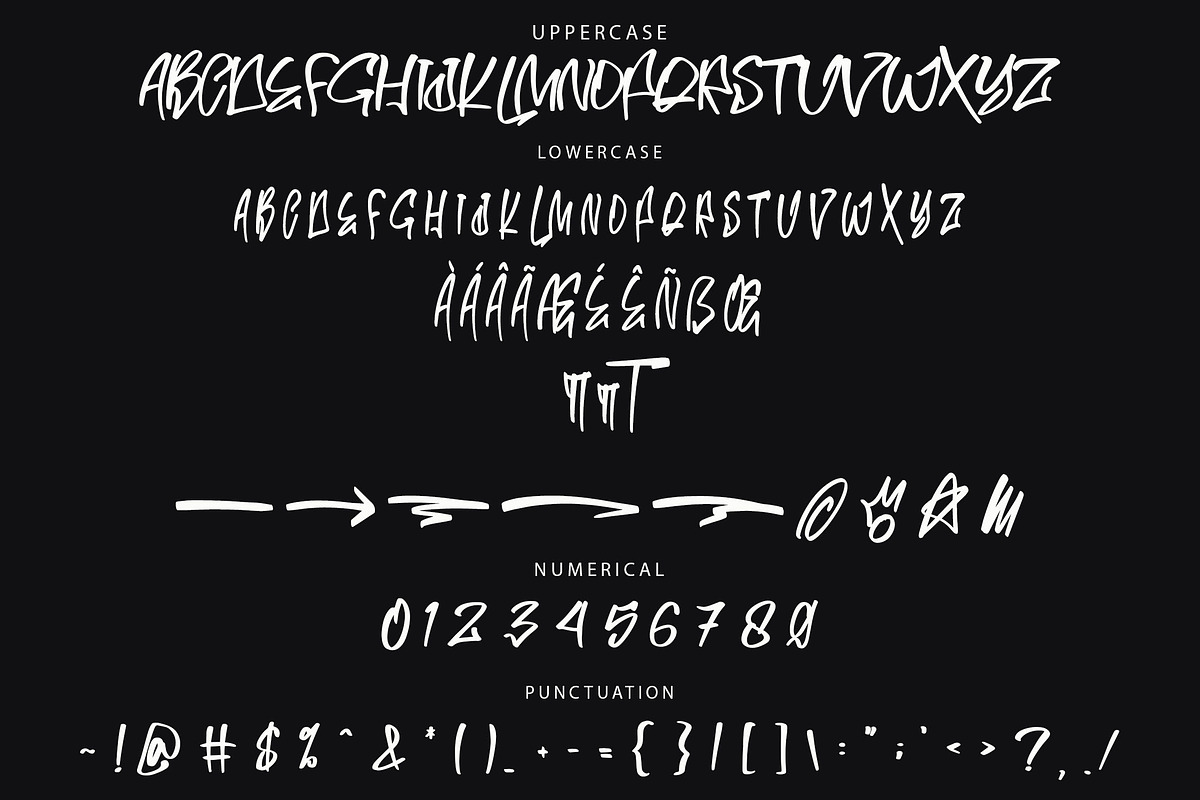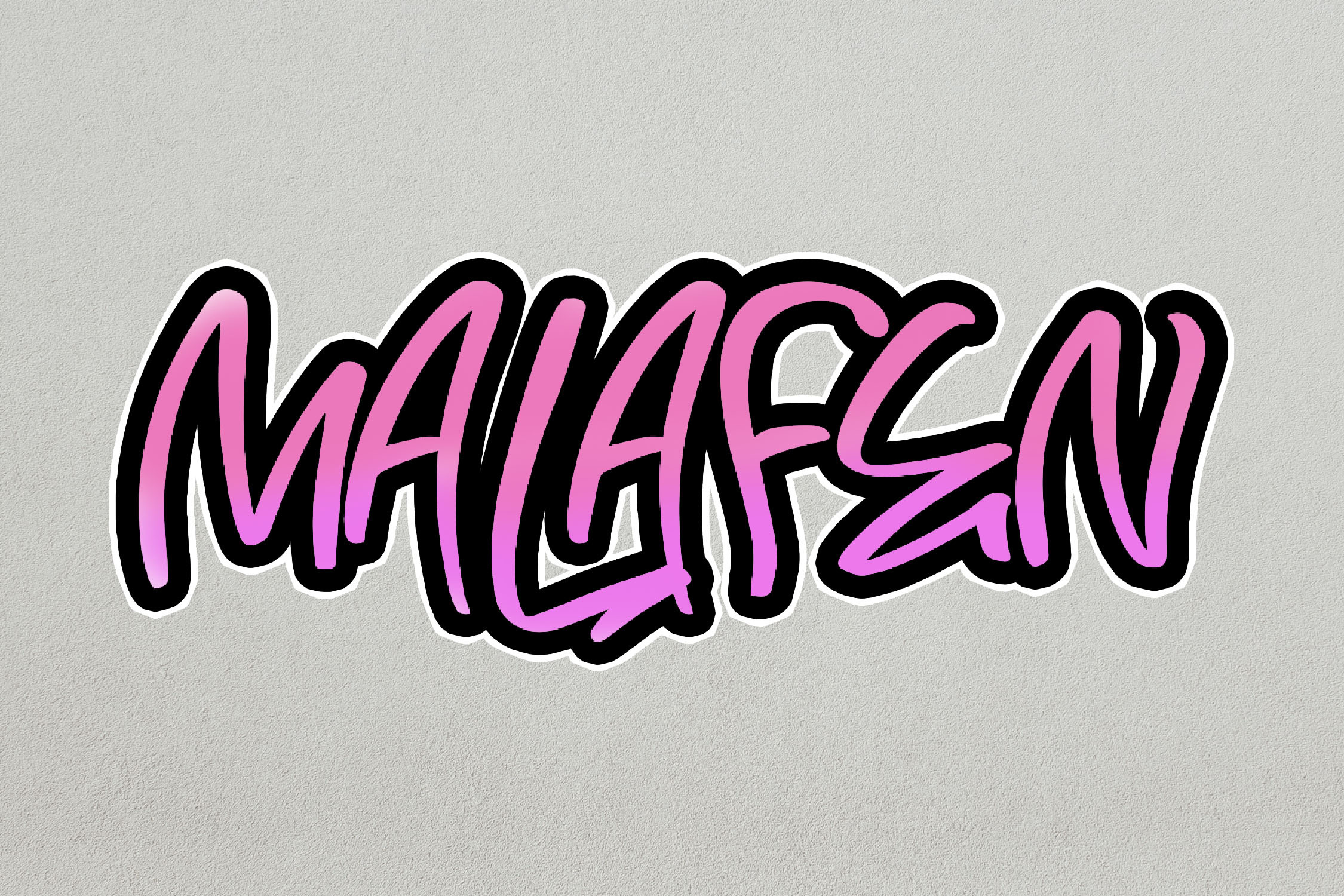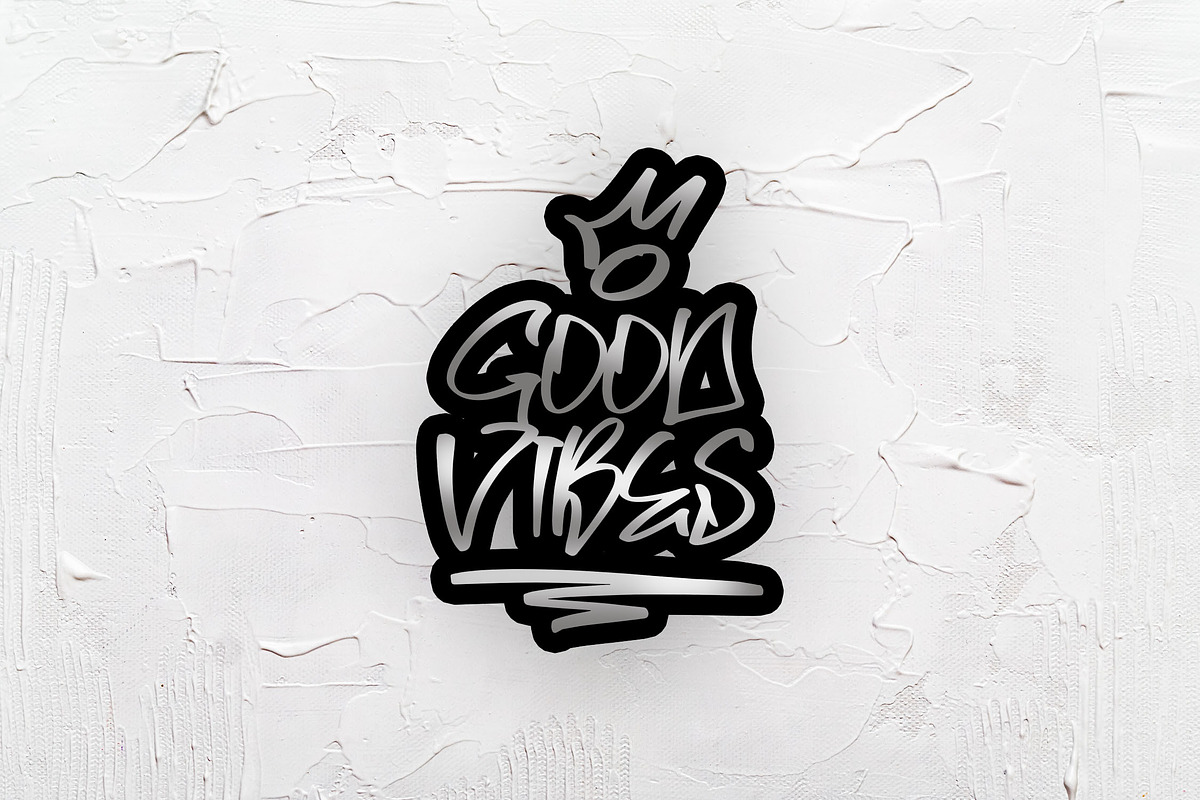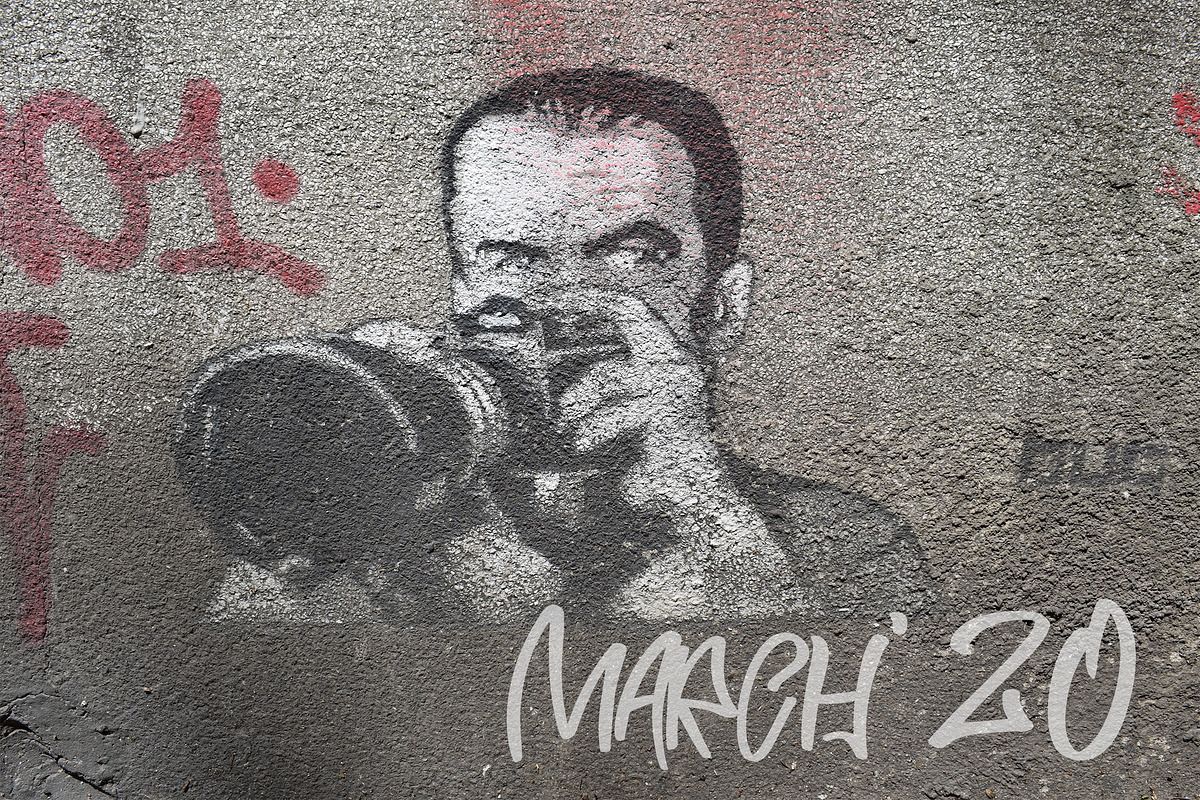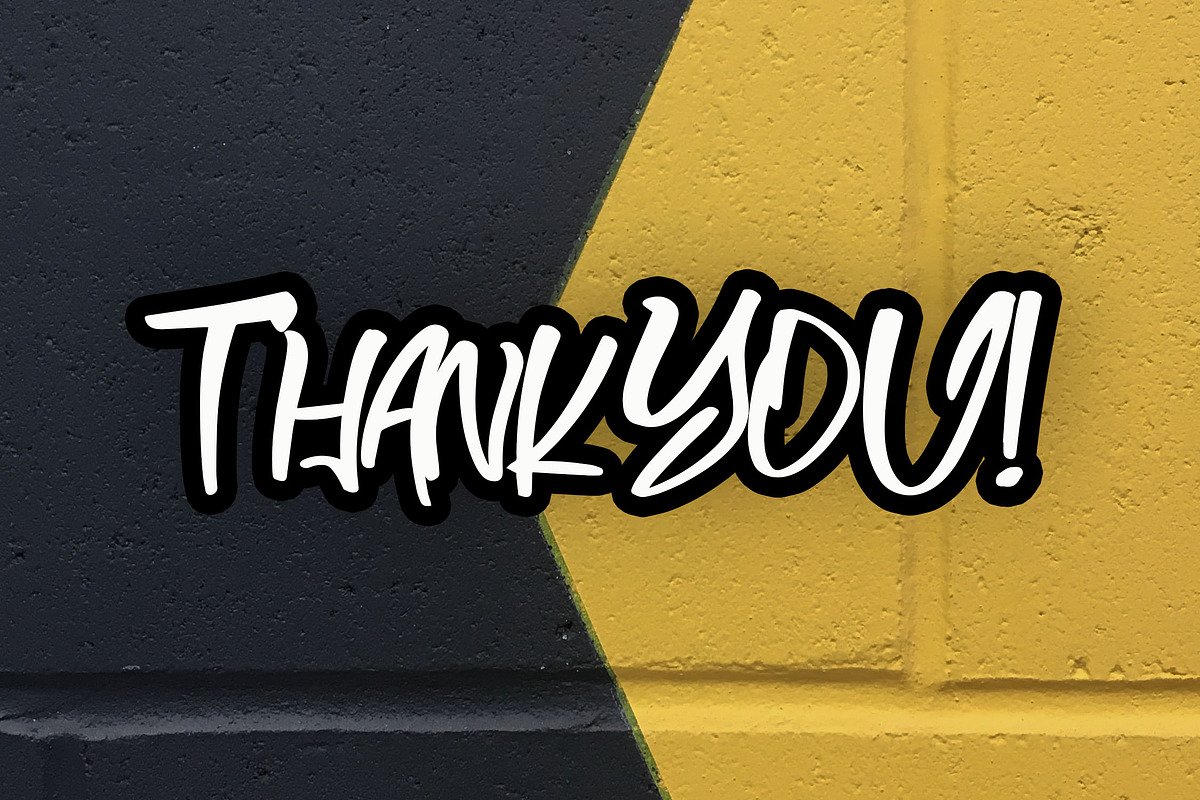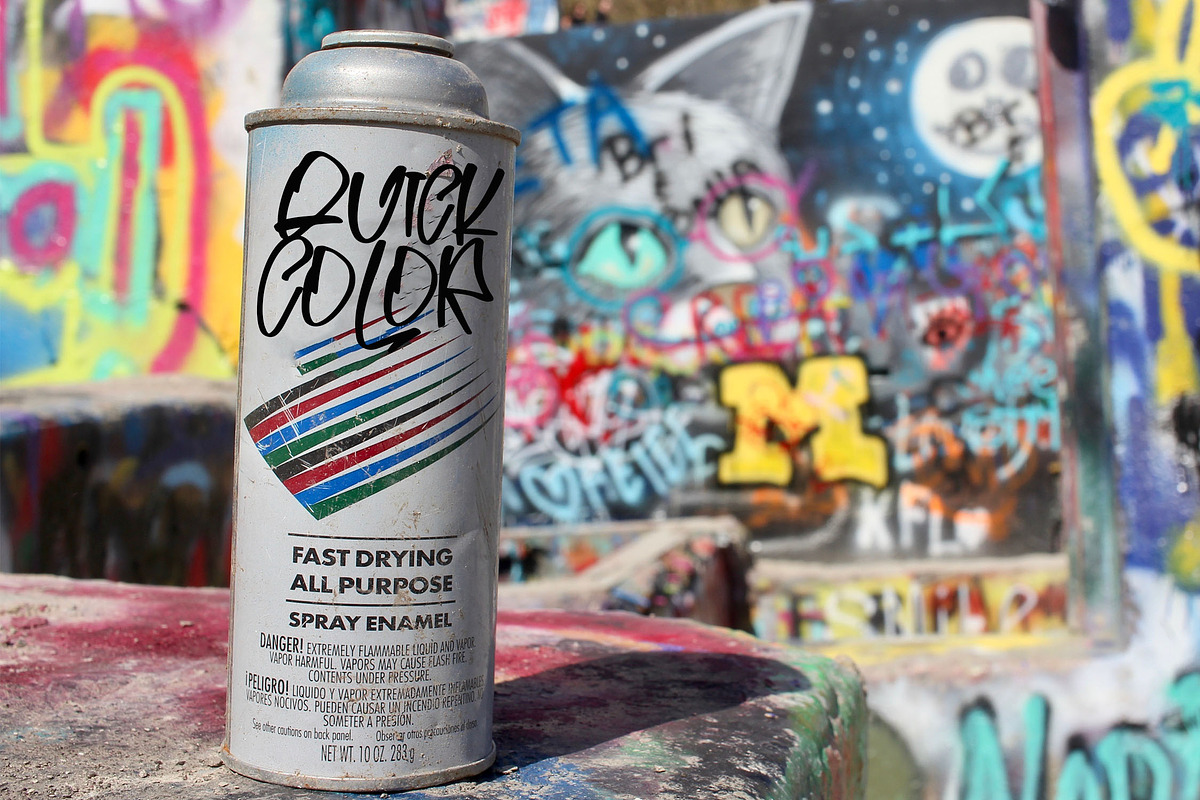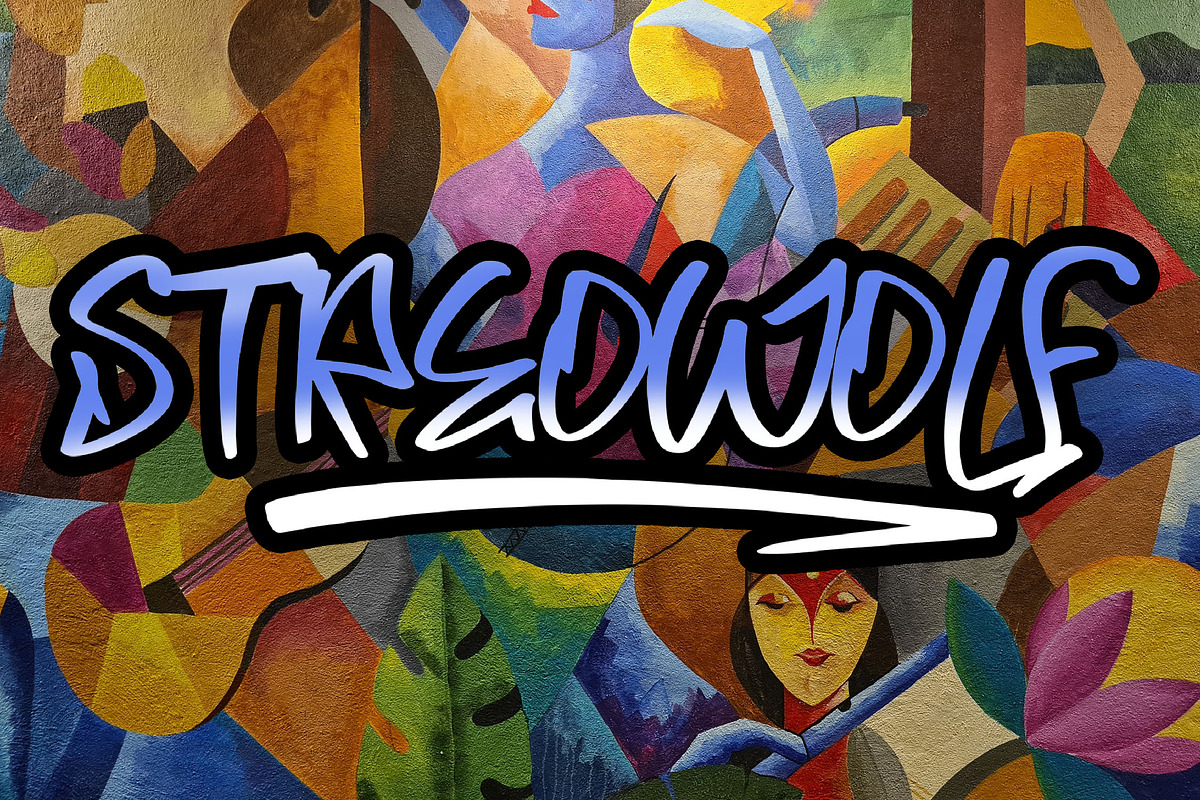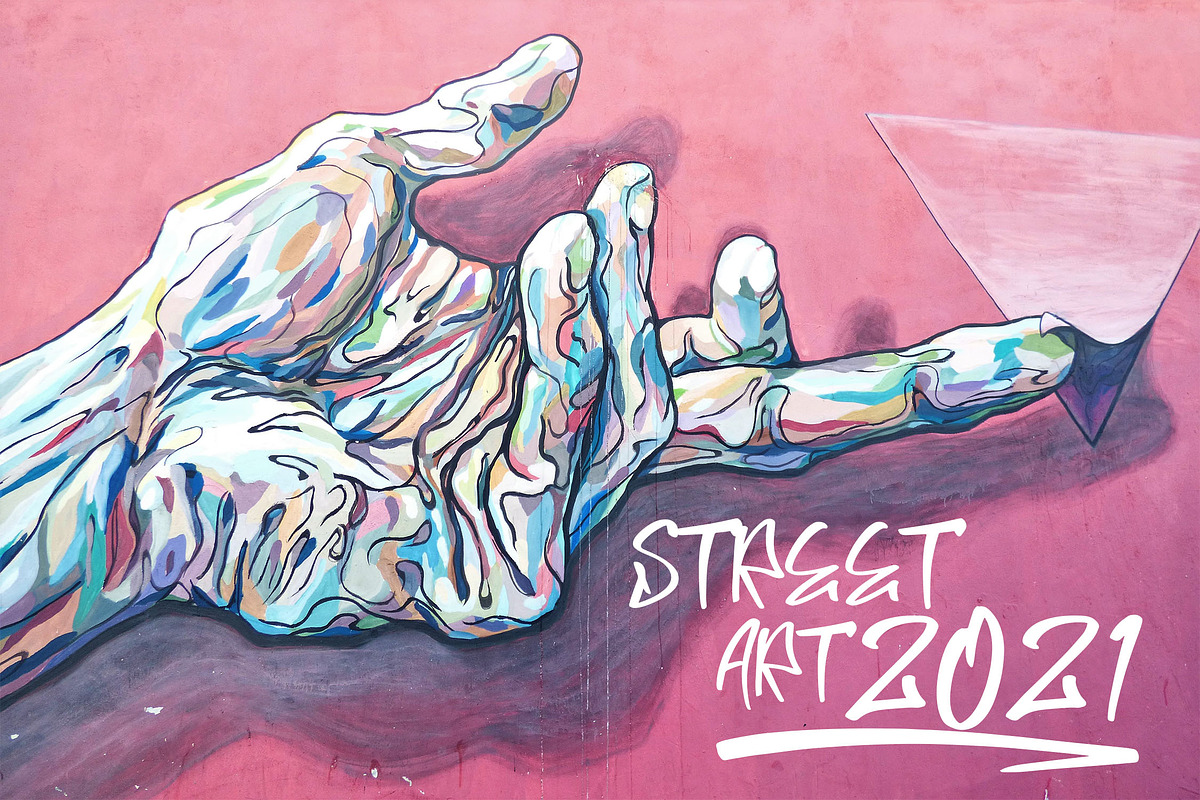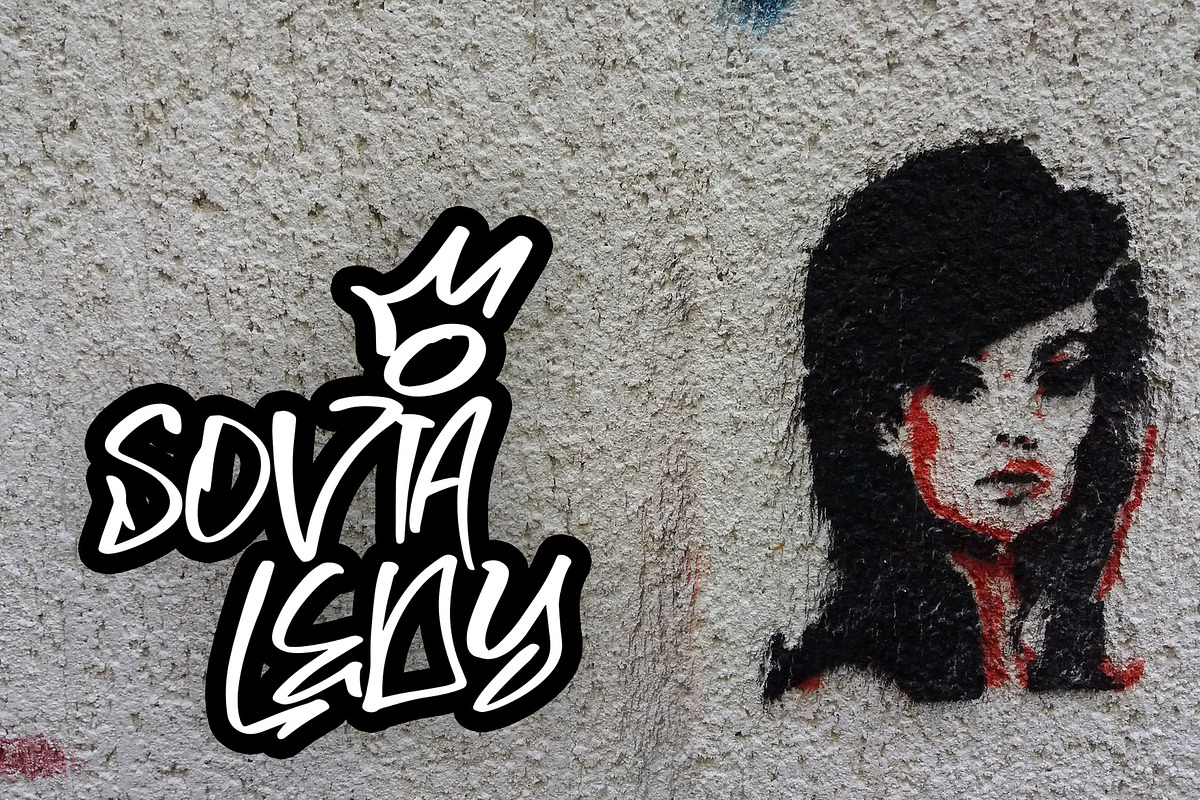
MALAFEN Graffiti Font
MALAFEN: Graffiti Font with Bold Handbrush Style
Discover MALAFEN, a graffiti font designed with a bold, natural handbrush style that brings unique character shapes to your designs. This font is crafted to elevate the visual appeal of any project, making it perfect for adding a dynamic and edgy touch to your graphics. Whether you’re designing posters, t-shirts, or branding materials, MALAFEN enhances your work’s impact with its raw, authentic vibe.
- Creative Ligatures & Stylistic Alternates: Add variety and style to your text.
- Swashes & Multilingual Support: Make your designs truly expressive and accessible to a global audience.